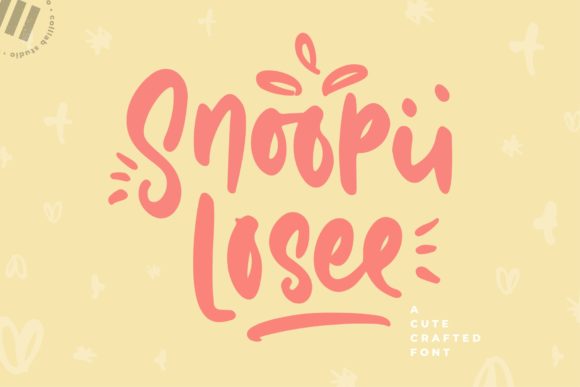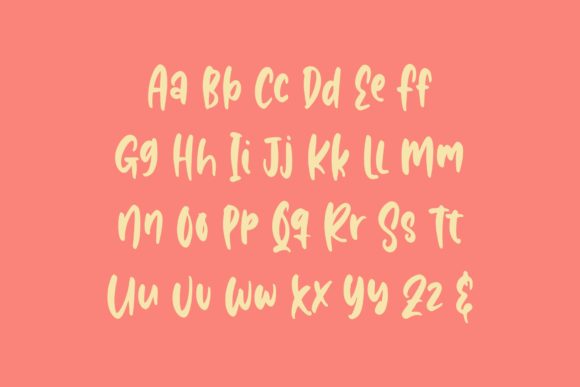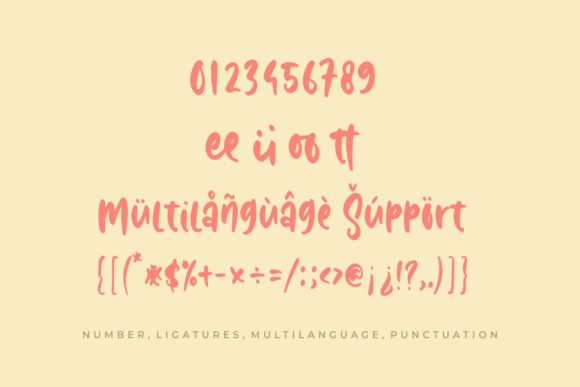
About Snoopii Losee Font
Snoopii Losee sounds like an exciting and enchanting display font that can add a touch of fun, cuteness, and playfulness to various design projects. With its authentic and standout style, it has the potential to elevate creative ideas and designs to new heights. Here are some suggestions on how to use Snoopii Losee font to make your projects truly captivating:
1. Logo Design: Utilize Snoopii Losee font for logo designs to create a playful and memorable brand identity that stands out from the crowd.
2. Social Media Graphics: Incorporate Snoopii Losee font into social media posts, stories, or ads to add a sense of charm and fun to your online presence.
3. Children’s Books: Use Snoopii Losee font for titles and headings in children’s books to captivate young readers and make the storytelling experience even more enjoyable.
4. Product Packaging: Design product labels or packaging using Snoopii Losee font to add a delightful and eye-catching element to your products.
5. Party Invitations: Create adorable and lively party invitations using Snoopii Losee font for a joyful and festive vibe.
6. Craft Projects: Use Snoopii Losee font in various craft projects, such as scrapbooking, card-making, or DIY projects, to add a touch of playfulness and creativity.
7. T-shirt Designs: Incorporate Snoopii Losee font into T-shirt designs to create cute and expressive apparel pieces.
8. Website Headers: Use Snoopii Losee font in website headers or banners to give your website a friendly and approachable look.
9. Greeting Cards: Design cheerful and animated greeting cards using Snoopii Losee font to express warmth and joy.
10. Stickers and Decals: Create fun and adorable stickers or decals using Snoopii Losee font for a whimsical touch.
11. Nursery Decor: Use Snoopii Losee font in nursery decor items, such as wall decals or art prints, to create a delightful and enchanting space for kids.
12. Party Decorations: Design playful and vibrant party decorations, banners, or favor tags using Snoopii Losee font for a lively and festive atmosphere.
13. Personal Stationery: Incorporate Snoopii Losee font into personal stationery, such as note cards or envelopes, for a unique and delightful correspondence experience.
14. Inspirational Quotes: Create inspirational quote graphics or prints using Snoopii Losee font to add a positive and uplifting message to your designs.
15. Classroom Materials: Use Snoopii Losee font in classroom materials, posters, or bulletin boards to engage students with its playful and friendly style.
16. Packaging Inserts: Add playful messages or thank-you notes to product packaging inserts using Snoopii Losee font for a personalized touch.
17. Website or App Icons: Design cute and catchy icons for your website or mobile app using Snoopii Losee font to create a fun and cohesive user experience.
18. Party Favors: Create delightful party favors, such as custom bookmarks or magnets, using Snoopii Losee font as a special keepsake for guests.
19. Children’s Activity Sheets: Use Snoopii Losee font for headings and instructions in children’s activity sheets or coloring pages to make learning and playtime more enjoyable.
20. DIY Gifts: Incorporate Snoopii Losee font into DIY gifts, such as custom mugs or keychains, to add a personal and adorable touch.
In summary, Snoopii Losee font’s fun, cute, and authentic qualities make it a perfect choice for a variety of design projects. Whether you’re working on branding, party invitations, social media graphics, or personal projects, Snoopii Losee font is sure to bring a sense of enchantment and charm to your creations. So, embrace the playfulness of Snoopii Losee font and let your imagination run wild for truly standout and captivating designs!